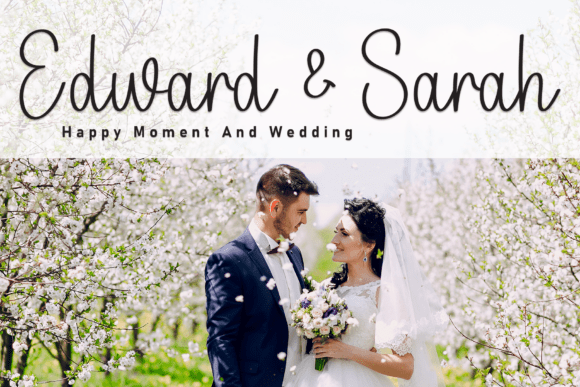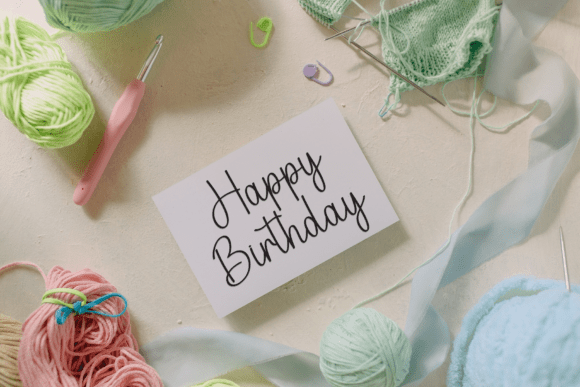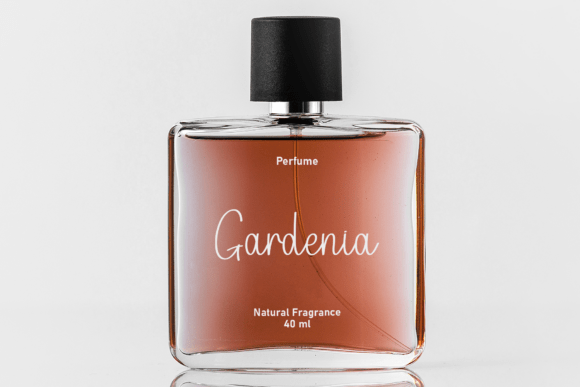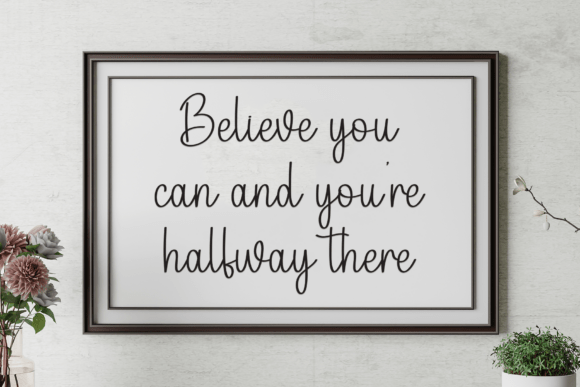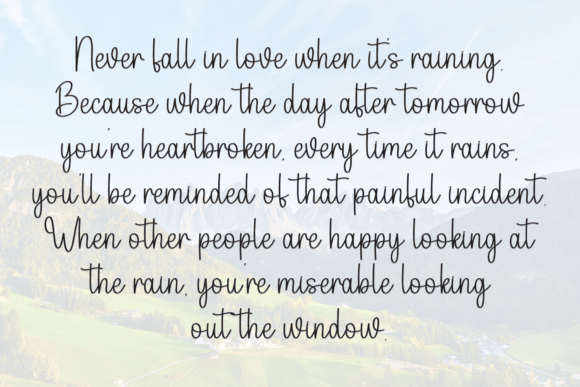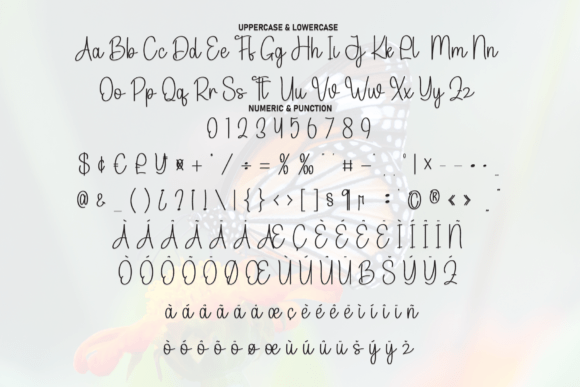
Introducing Butterfly Font: Elevate Your Designs with Elegance and Modern Charm
In the world of typography, few fonts manage to strike a balance between elegance, modernity, and versatility. Butterfly Font is one such exceptional typeface that embodies these qualities, making it a perfect addition to any designer’s toolkit. This stylish script font is designed to bring a touch of sophistication and personality to various design projects, from logos and invitations to packaging and social media graphics.
The Beauty of Butterfly Font
Butterfly Font is characterized by its fluid strokes, graceful curves, and meticulously crafted letterforms. These features come together to create a font that not only captures the essence of hand-drawn calligraphy but also infuses it with a contemporary edge. The result is a typeface that exudes elegance and modern charm, capable of elevating any design project.
Key Features of Butterfly Font
- Fluid Strokes: The font’s fluid strokes contribute to its organic and natural feel, reminiscent of hand-drawn calligraphy.
- Graceful Curves: The carefully designed curves add to the font’s elegance and sophistication, making it perfect for designs that require a touch of refinement.
- Balanced Letterforms: Each letterform is meticulously crafted to ensure balance and harmony, resulting in a font that is both visually appealing and easy to read.
- Versatility: Butterfly Font is designed to be versatile, making it suitable for a wide range of design applications.
Use Cases for Butterfly Font
The versatility of Butterfly Font makes it an excellent choice for various design projects. Here are some of the ideal use cases for this elegant script font:
- Logos: Create a lasting impression with a logo that exudes elegance and sophistication. Butterfly Font is perfect for branding projects that require a touch of modern charm.
- Invitations: Whether it’s a wedding invitation, a birthday party invite, or any other special occasion, Butterfly Font adds a touch of refinement and personality to your designs.
- Packaging: Elevate your product packaging with a font that stands out. Butterfly Font’s unique style can help your product packaging design leave a lasting impression on customers.
- Social Media Graphics: Make your social media posts stand out with Butterfly Font. It’s perfect for creating engaging and visually appealing graphics that capture the attention of your audience.
Why Choose Butterfly Font?
In a world where design trends are constantly evolving, having a font that can keep up with the demands of modern design is crucial. Here are some reasons why Butterfly Font stands out:
- Unique Style: Butterfly Font offers a unique style that is both elegant and modern, making it a great addition to any design project.
- High Versatility: Its versatility ensures that it can be used across various design applications, from print to digital media.
- Easy to Read: Despite its elegant and cursive nature, Butterfly Font remains easy to read, making it functional as well as beautiful.
Butterfly Font is more than just a typeface; it’s a design element that can transform your projects with its elegance, modern charm, and versatility. Whether you’re a designer looking to elevate your branding projects or a crafter seeking to add a touch of sophistication to your creations, Butterfly Font is an excellent choice. Its fluid strokes, graceful curves, and carefully balanced letterforms ensure that it brings a unique and refined aesthetic to any design. Embrace the beauty of Butterfly Font and discover how it can enhance your designs, making them more visually appealing and engaging.
With Butterfly Font, you don’t just get a typeface; you get a tool that can help you communicate your message with style and elegance. So, why settle for ordinary when you can have a font that adds an extra layer of sophistication to your designs? Choose Butterfly Font for your next project and experience the difference it can make.